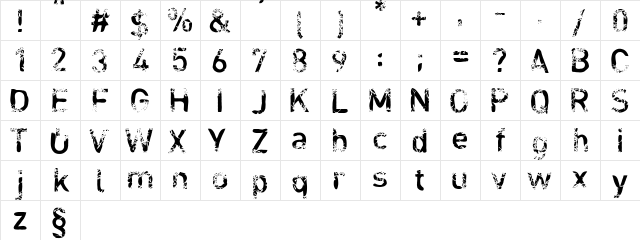
blabloosy Medium
| Foundry | loosydesign (fabian pfeifhofer) |
| Designer | loosydesign (fabian pfeifhofer) |
Design Context for blabloosy Typeface
blabloosy is a composed and adaptable typeface that performs quietly and consistently across a wide range of design contexts.
Pro Tip: Use blabloosy in both headline and body roles to test its range before committing to a single application.